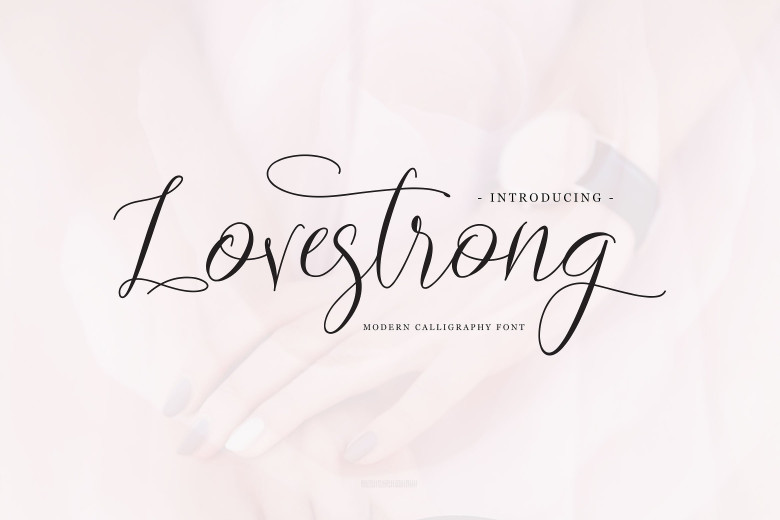
Lovestrong Script Font
Lovestrong – is a modern calligraphy font. It is designed and shared by Rometheme. Lovestrong a beautiful for signatures, logos, wedding invitations, website, headline, letterheads, nameplate, labels, bulletins, posters, quotes, badges, branding, greeting Cards, etc. and all project design other.